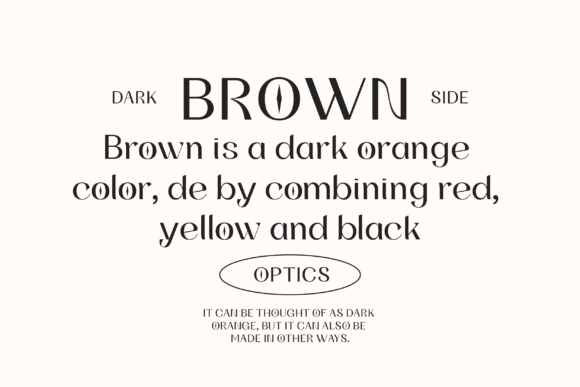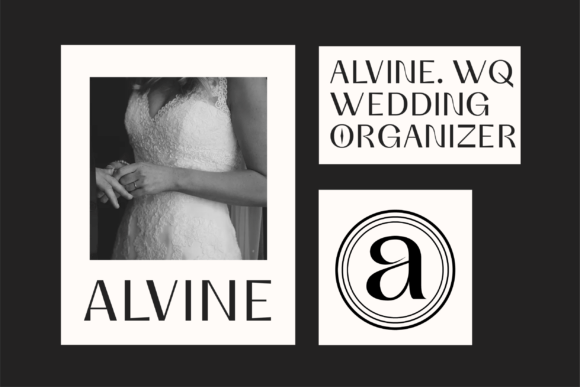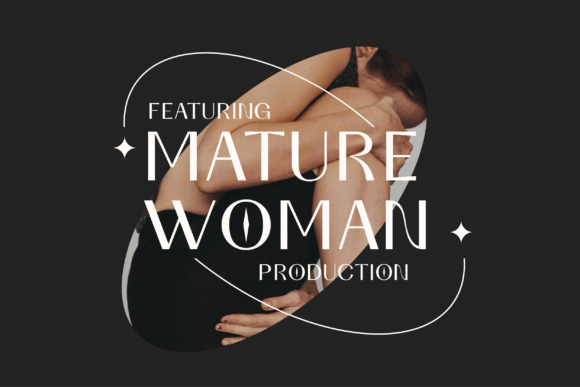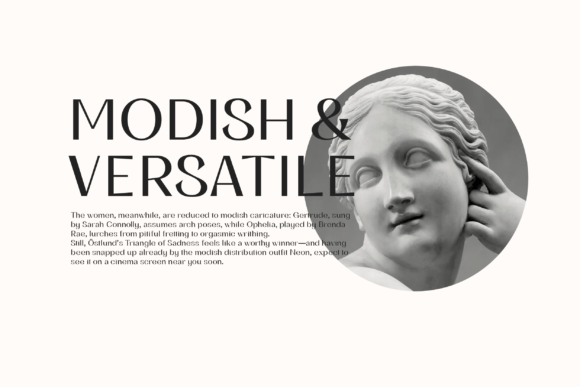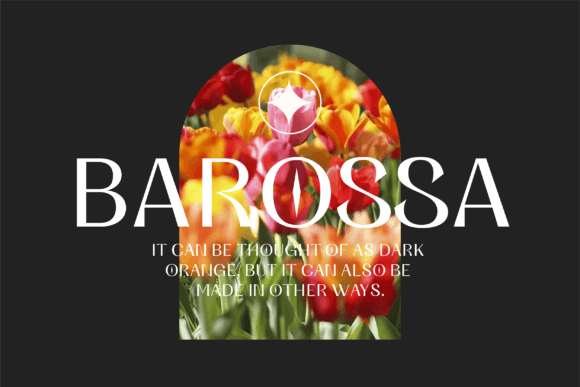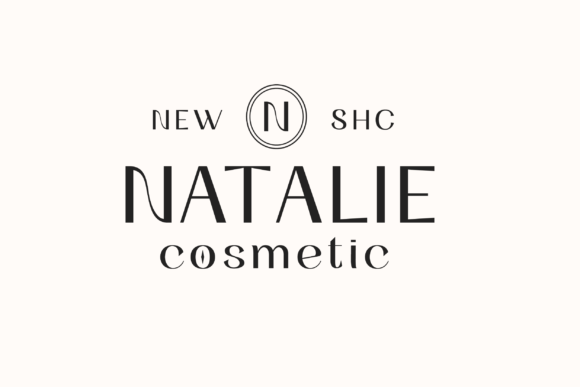
Introduction to Galleds Stars Font
Galleds Stars Display Typeface is a single font with a minimalistic but standout style for any work from movie titles, music album covers, magazines, beauty ads, and even wedding invitations.
Minimalist type design has been a success for professional designers all over the world .
Key Features of Galleds Stars Font